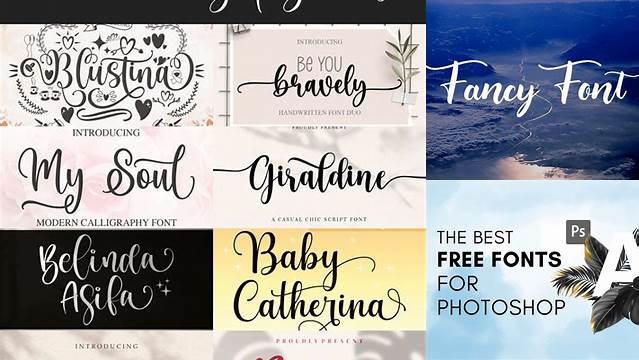
Free Fonts For Photoshop: Download Now!
Hey guys! Looking to spice up your Photoshop projects? Nothing makes a design pop quite like the perfect font. And guess what? You don't have to break the bank to get amazing typography. This article is your ultimate guide to finding and downloading free fonts for Photoshop. We'll cover everything from where to find them, what to look for, and even how to install them. So, let's dive in and get your creative juices flowing!
1. Best Websites to Download Free Fonts for Photoshop
Finding the right website is the first step in your font-hunting journey. There are tons of resources out there, but not all of them are created equal. You want to find sites that offer a wide selection of high-quality free fonts for Photoshop and have clear licensing terms. Let's explore some of the top contenders. These websites are treasure troves for designers and creatives, offering a vast array of typefaces to suit any project. Whether you’re working on a sleek, modern design or a vintage-inspired masterpiece, the perfect font is just a few clicks away. It's essential to choose reputable platforms to ensure the fonts are not only visually appealing but also safe to download and use. Make sure to always double-check the licensing agreements, especially if you plan to use the fonts for commercial projects. Some fonts are free for personal use but require a license for business applications. By doing your due diligence, you can avoid any legal issues down the road and enjoy using your new fonts with peace of mind. Happy font hunting, guys!
6. Finding the Perfect Font for Your Project
So you’ve got your free fonts for Photoshop downloaded and installed, but now comes the big question: how do you choose the perfect one for your project? This can feel a bit overwhelming with so many options available, but don't worry, we've got some tips to help you narrow it down. First, think about the overall tone and style of your project. Are you going for something modern and minimalist, or more vintage and ornate? The font should complement the design, not clash with it. For a clean and modern look, sans-serif fonts are often a good choice. If you're aiming for something more traditional or elegant, serif fonts might be a better fit. Script fonts can add a touch of personality and flair, but they're not always the most readable, so use them sparingly. It’s also important to consider the readability of the font. A beautiful font won’t do you much good if it’s hard to read, especially for body text. Test out different fonts and see how they look in different sizes and contexts. Don’t be afraid to experiment and mix and match fonts, but make sure to keep the combination harmonious. A good rule of thumb is to use no more than two or three different fonts in a single project. With a little practice and a keen eye, you’ll become a font-choosing pro in no time!
7. Using Font Pairing for Better Designs
Font pairing is an art form, guys! It's about choosing two or more free fonts for Photoshop that complement each other and create a visually appealing hierarchy. A good font pairing can elevate your design and make it look more professional. A common approach is to pair a serif font with a sans-serif font. For example, you might use a bold sans-serif font for headings and a classic serif font for body text. This creates a nice contrast and makes the design easier to read. Another tip is to use fonts from the same font family. Many font families include variations in weight and style, such as light, regular, bold, and italic. Using different weights and styles from the same family can create a cohesive and harmonious look. You can also look for font pairings that have been specifically designed to work well together. Many font foundries offer pairing suggestions for their fonts, which can be a great starting point. Don't be afraid to experiment, but always keep readability in mind. The goal is to create a design that’s both beautiful and functional. There are tons of resources online that offer font pairing inspiration, so take some time to browse and see what catches your eye. With the right font pairings, your designs will really shine!
8. Free Sans-Serif Fonts for Photoshop
Sans-serif fonts are the workhorses of modern design. Their clean lines and simple shapes make them incredibly versatile and easy to read, especially on screens. If you’re looking for free fonts for Photoshop that offer a contemporary feel, sans-serif fonts are a fantastic choice. These fonts are characterized by the absence of serifs (the little decorative strokes at the end of letterforms), giving them a sleek and minimalist appearance. They’re perfect for headlines, body text, logos, and pretty much anything else you can think of. Some popular sans-serif fonts include Helvetica, Arial, and Open Sans, but there are countless others to explore. When choosing a sans-serif font, consider the overall tone you want to convey. Some sans-serif fonts are more geometric and angular, while others are softer and more rounded. The weight and width of the font can also make a big difference. A bold sans-serif font can command attention, while a light and narrow font can create a more elegant and understated look. Don't be afraid to mix and match different sans-serif fonts to create visual interest, but make sure they complement each other. With a solid collection of sans-serif fonts in your toolkit, you'll be well-equipped to tackle any design project.
9. Free Serif Fonts for Photoshop
Serif fonts are like the classic novels of the typography world—timeless, elegant, and full of character. These fonts are characterized by the small decorative strokes (serifs) at the end of the letterforms, which give them a more traditional and refined appearance. If you're looking to add a touch of sophistication to your designs, free serif fonts for Photoshop are the way to go. Serif fonts are often used for body text in books and magazines because they're highly readable, but they can also work beautifully for headlines and logos. Some well-known serif fonts include Times New Roman, Garamond, and Georgia, but there are countless other gems to discover. When choosing a serif font, think about the overall mood you want to create. Some serif fonts are more formal and stately, while others have a warmer and more inviting feel. The thickness and shape of the serifs can also vary, so pay attention to the details. A bold serif font can make a strong statement, while a delicate serif font can add a touch of elegance. Pairing a serif font with a sans-serif font is a classic combination that works well in many designs. Experiment with different serif fonts and see how they can elevate your projects.
10. Free Script Fonts for Photoshop
If you want to add a personal touch to your designs, script fonts are your secret weapon. These fonts mimic the flowing strokes of handwriting, giving your text a unique and expressive quality. Free script fonts for Photoshop can range from elegant and formal to playful and casual, so there’s a script font for almost any occasion. They're perfect for invitations, logos, headings, and other design elements where you want to make a statement. However, it's important to use script fonts sparingly, as they can be less readable than serif or sans-serif fonts, especially in large blocks of text. When choosing a script font, consider the overall style and tone of your project. A formal script font might be ideal for wedding invitations, while a more casual script font could be perfect for a blog header. The thickness and slant of the font can also impact its readability and visual appeal. Be sure to test out different script fonts and see how they look in different contexts. Pairing a script font with a simple sans-serif font can create a balanced and harmonious design. With the right script font, you can add a touch of personality and flair to your projects.
11. Free Display Fonts for Photoshop
Display fonts are the rock stars of the font world. They're designed to grab attention and make a statement, making them perfect for headlines, posters, and other large-format designs. If you're looking for free display fonts for Photoshop that pack a punch, you've come to the right place. Display fonts come in a wide variety of styles, from bold and geometric to whimsical and decorative. They often have unique and eye-catching features that set them apart from more traditional fonts. When choosing a display font, consider the overall message you want to convey. A bold and impactful display font can be great for a call to action, while a more playful display font might be perfect for a children's book cover. Because display fonts are often used in larger sizes, they can be a bit less readable than serif or sans-serif fonts in small text. It’s essential to use them strategically and pair them with more readable fonts for body text. Experiment with different display fonts to find the perfect one for your project. With the right display font, you can create designs that are both visually stunning and highly effective.
12. Free Fonts for Logos in Photoshop
The font you choose for your logo can make or break your brand identity. A well-chosen font can communicate your brand’s personality and values, while a poorly chosen font can send the wrong message. If you're designing a logo in Photoshop and looking for free fonts for Photoshop, there are plenty of great options to consider. The best font for your logo will depend on your brand’s style and target audience. For a modern and minimalist brand, a clean sans-serif font might be a good choice. For a more traditional or sophisticated brand, a serif font could be a better fit. Script fonts can add a touch of personality, but they're not always the most readable in logos, so use them carefully. It's essential to choose a font that's legible and scalable, so it looks good both on a business card and on a billboard. Think about how the font will look in different sizes and contexts. Also, make sure the font works well with your brand colors and other design elements. Font pairing can also be effective in logo design, but keep it simple. Using too many fonts can make your logo look cluttered and unprofessional. With careful consideration, you can find a free font that perfectly represents your brand.
13. Free Fonts for Headings in Photoshop
Headings are the signposts of your design, guiding the reader through your content. The right font for your headings can grab attention, create visual hierarchy, and make your text more engaging. If you're looking for free fonts for Photoshop that will make your headings stand out, there are lots of fantastic choices. For headings, you can often get away with using more stylized or decorative fonts than you would for body text. Display fonts, bold sans-serif fonts, and even script fonts can work well for headings, depending on the overall design. The key is to choose a font that complements your body text and creates a clear visual distinction. A common approach is to use a sans-serif font for headings and a serif font for body text, or vice versa. This creates a nice contrast and makes the headings pop. You can also play with different font weights and sizes to create visual hierarchy. Use a larger and bolder font for main headings and smaller and lighter fonts for subheadings. Always consider the readability of your headings. While it's important to make them eye-catching, they should also be easy to read at a glance. With the right font choices, your headings can become a powerful design element.
14. Free Fonts for Body Text in Photoshop
Body text is the backbone of your design, and choosing the right font is crucial for readability and overall user experience. If you're searching for free fonts for Photoshop that are perfect for body text, you'll want to focus on fonts that are legible and comfortable to read in large blocks. Serif fonts are often a good choice for body text because the serifs help guide the eye across the page, making reading easier. However, many sans-serif fonts also work well for body text, especially on screens. The key is to choose a font that's clean and simple, without too many decorative elements that can distract the reader. When selecting a font for body text, consider the font size and line spacing. A font that looks great in a headline might not be as readable at a smaller size. Make sure the font is large enough to read comfortably, and adjust the line spacing to create a pleasant reading experience. Avoid using script or display fonts for body text, as these fonts are typically less legible in large blocks. Font pairing can also enhance the readability of your body text. Choose a font that complements your heading font and creates a harmonious design. With the right font for your body text, you can ensure that your message is clear and engaging.
15. Monospace Fonts for Photoshop
Monospace fonts are a bit different from your typical fonts. Each character takes up the same amount of horizontal space, giving them a distinct, mechanical look. This can be super useful in certain design scenarios, especially where alignment and readability are key, like in coding or technical documentation. So, if you're looking for free fonts for Photoshop with a monospace style, you're in the right place! Think about where you might want to use this unique style. Monospace fonts are fantastic for displaying code snippets in a clean and organized way, creating a retro-tech aesthetic, or even adding a bit of a typewriter vibe to your designs. There are tons of variations out there, from sleek and modern to more rugged and vintage-inspired. The trick is finding the right one that matches the overall tone of your project. Experiment with different weights and styles within the monospace category to see what feels best. Sometimes, a slightly bolder monospace can make a big difference in readability, especially on screens. Don't be afraid to get creative and use monospace fonts in unexpected ways—you might just stumble upon a design that really pops!
16. Retro Fonts for Photoshop
Okay, let's talk retro! If you're aiming for a vintage vibe in your designs, retro fonts are where it's at. These free fonts for Photoshop can instantly transport your project back in time, whether you're channeling the groovy '70s, the sleek '80s, or the grunge '90s. Think about the specific era you're trying to evoke. Fonts from the mid-century modern era often have a clean, geometric feel, while those from the disco era might be more flamboyant and script-like. Knowing your decade is half the battle! When using retro fonts, context is everything. Pair them with colors and design elements that match the era you're going for. For example, a bold, psychedelic font would look amazing on a poster with vibrant, swirling patterns. Don't overdo it, though. Sometimes, a subtle retro font used sparingly can have more impact than a design that's dripping in vintage clichés. Play around with different combinations and see what feels authentic and visually appealing. There are tons of free retro fonts out there, so have fun exploring and finding the perfect fit for your project!
17. Modern Fonts for Photoshop
On the flip side, if you're all about that sleek, contemporary look, modern fonts are your best friend. These free fonts for Photoshop are clean, minimalist, and often geometric, making them perfect for designs that need a touch of sophistication and simplicity. Think about the key characteristics of modern design: clean lines, ample white space, and a focus on functionality. Modern fonts often reflect these qualities, with their streamlined shapes and understated elegance. Sans-serif fonts tend to dominate the modern category, but there are also some serif fonts that fit the bill with their sharp, refined serifs. When choosing a modern font, consider the overall feel you're going for. Some modern fonts are bold and impactful, while others are more delicate and understated. The weight and spacing of the letters can make a big difference in the overall impression. Modern fonts are incredibly versatile, working well in everything from logos and websites to print materials and presentations. Don't be afraid to experiment with different pairings and see how a modern font can elevate your designs to the next level.
18. Calligraphy Fonts for Photoshop
For a touch of elegance and artistry, calligraphy fonts are an amazing choice. These free fonts for Photoshop mimic the beautiful strokes of hand-lettering, adding a personal and refined touch to your designs. Think wedding invitations, elegant logos, or any project that calls for a bit of handcrafted charm. Calligraphy fonts come in a wide range of styles, from formal and traditional to casual and whimsical. Some mimic the classic copperplate style, while others have a more modern, brush-lettered feel. The key is to choose a font that matches the overall tone of your project. When using calligraphy fonts, legibility is key. While they're beautiful, some calligraphy fonts can be difficult to read in large blocks of text. It's often best to use them sparingly, for headings or short phrases, and pair them with a simpler font for body text. Pay attention to the spacing between letters and lines to ensure a balanced and readable design. Calligraphy fonts can be incredibly impactful, but they need to be used with a bit of finesse. Experiment with different styles and see how they can transform your designs from ordinary to extraordinary.
19. Grunge Fonts for Photoshop
If you're looking to add some grit and edge to your designs, grunge fonts are the way to go. These free fonts for Photoshop are distressed, textured, and often a little rough around the edges, making them perfect for projects that need a raw and edgy feel. Think band posters, urban-themed designs, or anything that needs a touch of rebellion. Grunge fonts are all about imperfection. They often feature splatters, cracks, and other imperfections that give them a unique and hand-crafted look. This makes them a great choice for designs that need a more organic and authentic feel. When using grunge fonts, consider the overall context of your project. They can be incredibly effective, but they can also be overwhelming if used improperly. It's often best to pair them with simpler design elements and plenty of negative space to avoid a cluttered look. Don't be afraid to experiment with different colors and textures to enhance the grunge effect. Grunge fonts can be a powerful tool for creating designs that stand out from the crowd, but they need to be used with intention and a bit of attitude.
20. Handwritten Fonts for Photoshop
For a personal and intimate touch, handwritten fonts are a fantastic choice. These free fonts for Photoshop mimic the natural strokes of handwriting, adding a sense of authenticity and warmth to your designs. Think thank-you notes, personal blogs, or any project that needs a human touch. Handwritten fonts come in a wide range of styles, from neat and legible to messy and expressive. Some look like they were written with a fine-tipped pen, while others have a more casual, marker-like feel. The key is to choose a font that matches the overall tone of your project. When using handwritten fonts, legibility is important, but so is the sense of personality. A slightly imperfect handwritten font can often feel more genuine than one that's too polished. It’s okay if the letters aren’t perfectly uniform – that’s part of the charm! Consider the context in which you'll be using the font. Handwritten fonts can be incredibly effective for adding a personal touch, but they may not be the best choice for projects that require a more formal or professional look. Experiment with different styles and see how they can bring a bit of your personality to your designs.
21. Decorative Fonts for Photoshop
When you really want to make a statement, decorative fonts are your go-to. These free fonts for Photoshop are all about flair and personality, often featuring elaborate designs and unique shapes. Think posters, invitations, or any project where you want to grab attention and make a lasting impression. Decorative fonts come in a huge range of styles, from whimsical and playful to elegant and ornate. Some feature intricate swirls and flourishes, while others incorporate bold geometric shapes or quirky illustrations. The key is to choose a font that matches the overall mood of your project. When using decorative fonts, less is often more. Because they're so eye-catching, decorative fonts can be overwhelming if used too extensively. It's often best to use them sparingly, for headings or short phrases, and pair them with a simpler font for body text. Pay attention to the spacing between letters and lines to ensure a balanced and readable design. Decorative fonts can be a fantastic way to add personality and visual interest to your designs, but they need to be used with intention and a bit of restraint. Experiment with different styles and see how they can transform your project from ordinary to extraordinary.
22. Font Bundles: Getting More for Free
Who doesn't love a good deal? Font bundles are collections of free fonts for Photoshop that are often offered as a package, giving you a diverse set of typefaces for the price of, well, nothing! This is a fantastic way to expand your font library and discover new favorites. Think of font bundles as a curated selection of fonts, often grouped by style or theme. You might find a bundle of elegant script fonts, a collection of bold display fonts, or a mix of versatile sans-serif and serif fonts. The great thing about bundles is that they often include fonts that you might not have discovered on your own, opening up new creative possibilities. When you find a font bundle, take a moment to preview the fonts and make sure they're a good fit for your style and needs. Also, be sure to check the licensing terms, as some bundles may have different rules for personal and commercial use. Font bundles can be a treasure trove of typographic goodness, but it's always a good idea to do your due diligence before downloading. With a little searching, you can find amazing font bundles that will elevate your designs without breaking the bank.
23. Font Generators: Creating Your Own Style
Feeling adventurous? Font generators are online tools that allow you to create your own unique fonts. While these free fonts for Photoshop might not be professional-grade, they can be a fun way to experiment and add a personal touch to your projects. Think custom logos, unique headings, or anything that needs a one-of-a-kind typeface. Font generators work in a variety of ways. Some let you draw each letter from scratch, while others use algorithms to generate fonts based on your input. The results can be surprising and often quite interesting! When using a font generator, it's important to have realistic expectations. The fonts you create might not be as polished or refined as those designed by professional typographers, but they can still be a great option for certain projects. Consider using font generators for more informal designs or for personal projects where a handcrafted feel is desired. Also, be mindful of legibility. It's tempting to get carried away with creative flourishes, but a font that's difficult to read isn't very useful. Font generators are a fantastic way to unleash your inner typographer and create something truly unique, but it's always a good idea to balance creativity with practicality.
24. Font Management Tools for Photoshop
If you're a font fanatic like me, you probably have a massive collection of typefaces. And with so many free fonts for Photoshop available, it's easy to get overwhelmed! That's where font management tools come in. These tools help you organize, preview, and activate your fonts, making it easier to find the perfect typeface for your project. Think of font management tools as your personal font librarians. They allow you to categorize your fonts, create font sets for specific projects, and even preview fonts in different styles and sizes. This can save you a ton of time and frustration, especially when you're working on a tight deadline. Some font management tools also offer features like font activation and deactivation, which can help improve your computer's performance by only loading the fonts you need. There are several font management tools available, both free and paid. Some popular options include FontBase, NexusFont, and FontExplorer X Pro. When choosing a font management tool, consider your budget and your specific needs. A free tool might be sufficient for basic font organization, while a paid tool may offer more advanced features. With the right font management tool, you can keep your font library organized and efficient, allowing you to focus on the creative aspects of your design work.
25. Troubleshooting Font Issues in Photoshop
Okay, let's face it: sometimes things go wrong. You've downloaded some awesome free fonts for Photoshop, but they're not showing up in the font menu, or they're displaying incorrectly. Don't panic! Font issues can be frustrating, but they're usually pretty easy to fix. One of the most common problems is that the font hasn't been installed correctly. Make sure you've followed the installation instructions for your operating system (Windows or macOS). Sometimes, you need to restart Photoshop or even your computer for the fonts to appear in the font menu. Another issue can be font corruption. If a font file is damaged, it might not display correctly or even crash your program. Try downloading the font again from a reputable source. Font conflicts can also cause problems. If you have multiple versions of the same font installed, they might interfere with each other. Font management tools can help you identify and resolve font conflicts. If you're still having trouble, check the Photoshop documentation or online forums for troubleshooting tips. Font issues can be a headache, but with a little patience and some basic troubleshooting skills, you can usually get things working smoothly again.
26. Font Websites with Commercial Licenses
If you're working on projects that will be used for commercial purposes (like logos, websites, or products for sale), it's essential to use fonts that have a commercial license. This gives you the legal right to use the font in your commercial work without worrying about copyright infringement. While there are plenty of free fonts for Photoshop with commercial licenses, it's important to verify the licensing terms before using them. Many font websites offer a mix of free and paid fonts, with different licensing options for each. Some websites specialize in fonts with commercial licenses, making it easier to find what you need. When you're downloading fonts for commercial use, look for clear and easy-to-understand licensing information. Some fonts may be free for personal use but require a license purchase for commercial use. Other fonts may have more restrictive licenses that limit how you can use them. Reputable font websites will provide detailed licensing agreements that outline your rights and responsibilities. If you're unsure about the licensing terms for a particular font, it's always best to contact the font designer or foundry for clarification. Using fonts with the appropriate license is crucial for protecting yourself and your business.
27. Exploring Google Fonts for Photoshop
Google Fonts is a treasure trove of free, open-source fonts that you can use in your Photoshop projects. With a vast library of typefaces spanning various styles and languages, Google Fonts is a fantastic resource for designers of all levels. What's great about Google Fonts is that all the fonts are free to use, even for commercial purposes. This makes it a fantastic option for projects with budget constraints. Think about how easy it is to integrate Google Fonts into your workflow. Many design tools, including Photoshop, have built-in support for Google Fonts, allowing you to browse and use them directly within your application. You can also download the fonts from the Google Fonts website and install them on your computer like any other font. Google Fonts offers a wide range of font styles, from classic serif and sans-serif fonts to more decorative and display fonts. This makes it easy to find the perfect typeface for any project. You can also use the Google Fonts website to experiment with font pairings and preview how different fonts will look together. With its vast selection and user-friendly interface, Google Fonts is a must-have resource for any designer looking to expand their font library.
28. Using Adobe Fonts with Photoshop
If you're an Adobe Creative Cloud subscriber, you have access to a vast library of fonts through Adobe Fonts (formerly Typekit). This is a fantastic resource for designers, offering a wide range of high-quality fonts that you can use in your Photoshop projects. What makes Adobe Fonts so convenient is its seamless integration with Adobe Creative Cloud applications. You can browse and activate fonts directly within Photoshop, without having to download and install them separately. This streamlines your workflow and makes it easy to experiment with different typefaces. Think about the sheer variety of fonts available in Adobe Fonts. The library includes thousands of fonts from leading type foundries, covering a wide range of styles and languages. Whether you're looking for a classic serif font, a modern sans-serif font, or a decorative display font, you're sure to find something that fits your needs. Adobe Fonts also offers a generous licensing policy, allowing you to use the fonts in both personal and commercial projects. If you're already paying for an Adobe Creative Cloud subscription, using Adobe Fonts is a no-brainer. It's a cost-effective way to access a vast library of high-quality fonts and elevate your designs.
29. Font Pairing Tools and Resources
Choosing the right fonts for your design is crucial, but pairing them effectively can be a real challenge. Luckily, there are tons of font pairing tools and resources available to help you create harmonious and visually appealing designs. Think of font pairing tools as your personal typography assistants. They can suggest font combinations based on different styles, moods, and design principles. This can be a huge time-saver, especially if you're not a typography expert. Many font websites and blogs offer font pairing guides and resources. These resources often showcase successful font pairings and explain why they work well together. You can use these examples as inspiration for your own designs. Some online tools allow you to input a font and then suggest other fonts that pair well with it. This can be a great way to discover new font combinations and experiment with different styles. Don't be afraid to try out different font pairings and see what works best for your project. There's no one-size-fits-all solution, so it's important to trust your eye and develop your own sense of typographic harmony. With the help of font pairing tools and resources, you can create designs that are both visually stunning and typographically sound.
30. Creating a Font Mood Board
Before you dive into downloading free fonts for Photoshop, it's super helpful to create a font mood board. Think of it as your visual guide for typography. A mood board helps you define the overall style and feel you want to achieve in your project. This will make it much easier to narrow down your font choices and ensure they align with your design goals. Start by gathering inspiration. Look at websites, magazines, and other designs that you admire. Pay attention to the fonts they use and how they contribute to the overall aesthetic. Collect images, colors, and textures that resonate with your project's theme. These visual elements will help you identify the right fonts to complement your design. Choose a variety of fonts for your mood board. Include different styles like serif, sans-serif, script, and display fonts. This will give you a broader range of options to consider. Arrange your fonts on the mood board in a way that feels visually pleasing. Consider the hierarchy of your text and how different fonts can be used for headings, body text, and captions. A well-crafted font mood board will save you time and effort in the long run. It will help you stay focused and make confident decisions about typography, resulting in a more cohesive and impactful design.